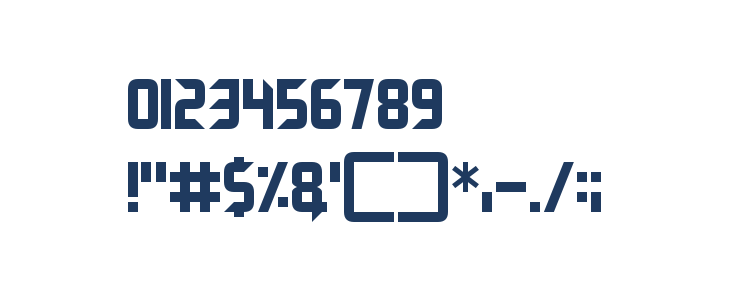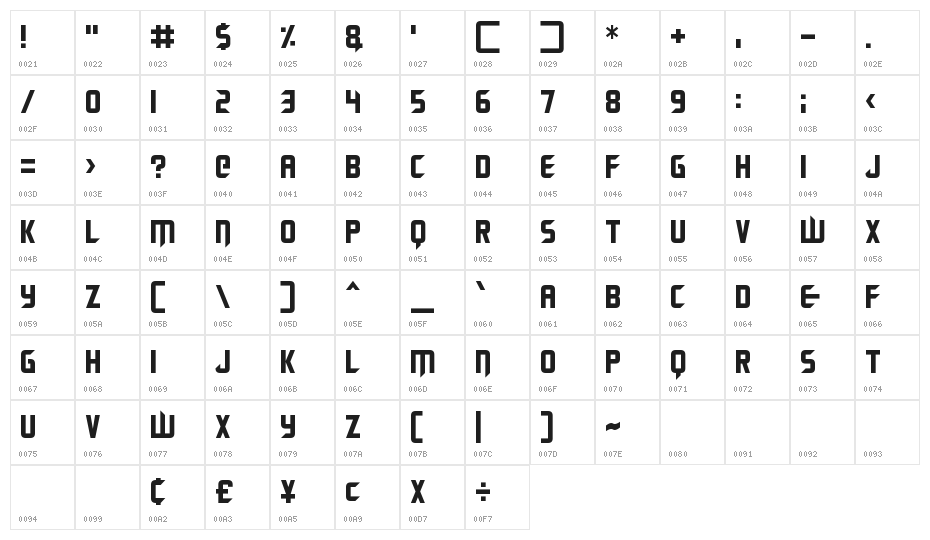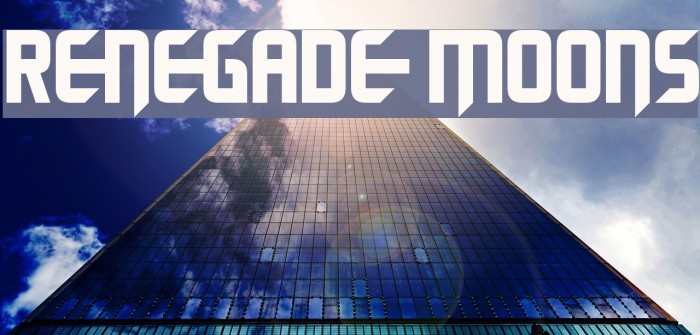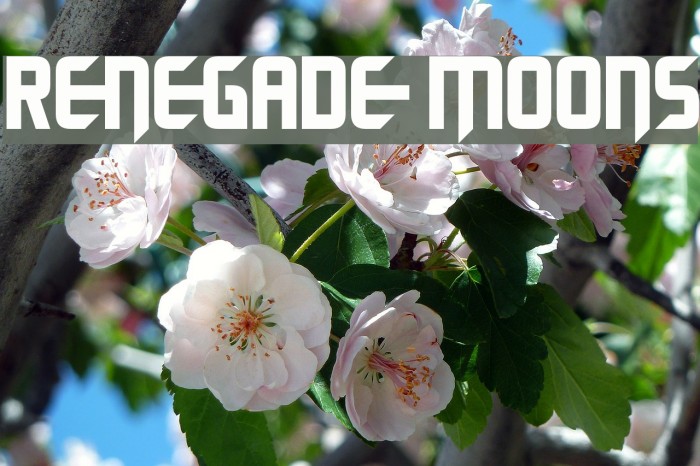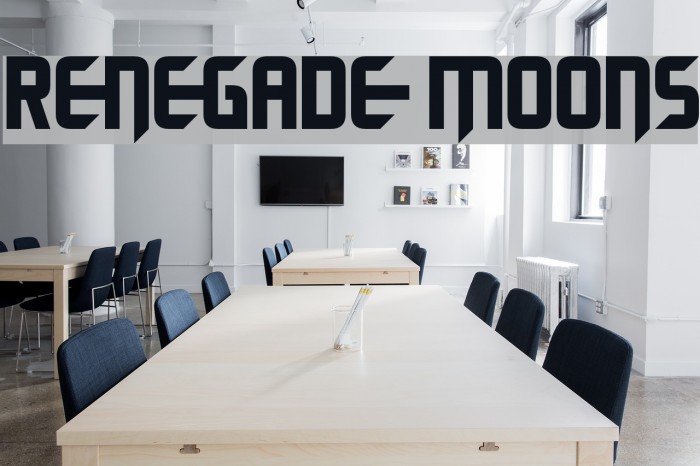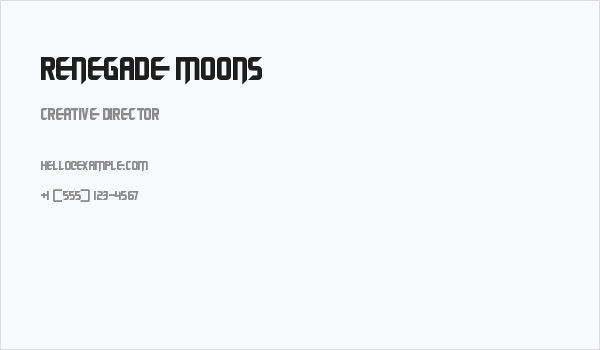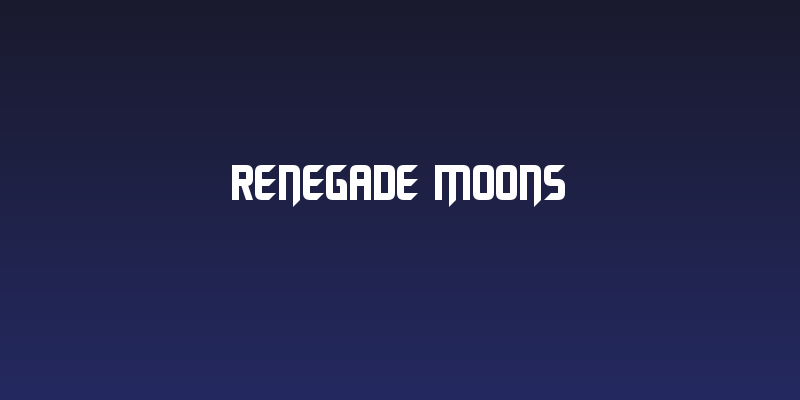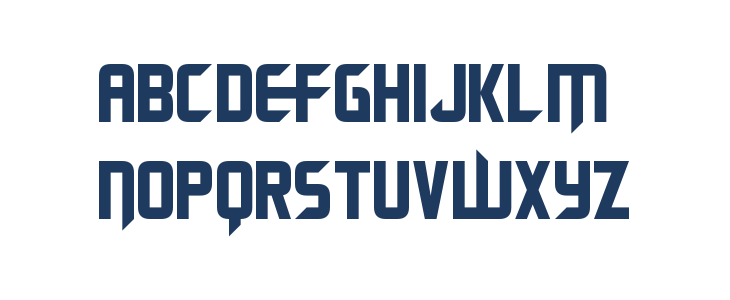
Renegade Moons Font
Renegade Moons Description
This font features a bold and futuristic design with sharp, angular edges and a geometric structure. The uppercase letters are distinct with a strong presence, making them ideal for attention-grabbing headlines. The lowercase letters maintain the same angular style, providing a cohesive look across different text sizes. Numbers and special characters are designed with the same bold and angular aesthetic, ensuring consistency throughout. The overall appearance is modern and dynamic, suitable for projects that require a strong visual impact.
| Proposed Projects | Ideal for sci-fi themed posters, video game titles, branding for tech companies, and any project needing a modern, edgy look. |